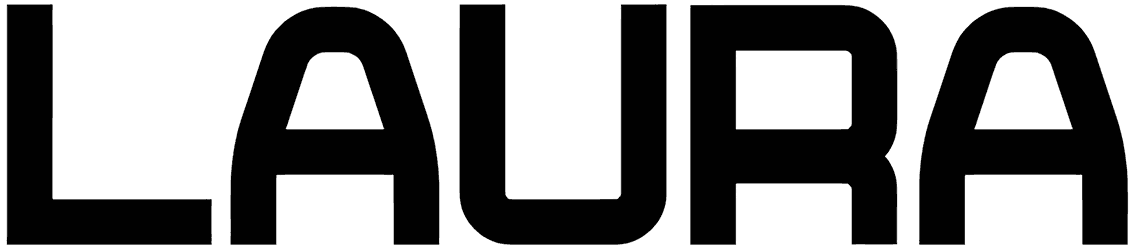
Veztro Font
Veztro is a suitable font for designers who are interested in creating a powerful and effective look, and at the same time don’t want to use sans serif fonts.
This DJ font has two completely different styles of capital letters, one of which has a rough and geometric look with cut edges, and the other has a playful and childish look with variable thickness. This font doesn’t include small letters and is mostly seen in the design of covers, posters, and logotypes.
Veztro is a modern display font with a dash of futuristic touch around the edges. If you wished for your projects to look more upbeat, then Veztro is your answer!
Veztro best uses for logotype, poster, cover, branding, social media posts, business cards, presentation, portfolio and many more. Rock your design with Veztro!